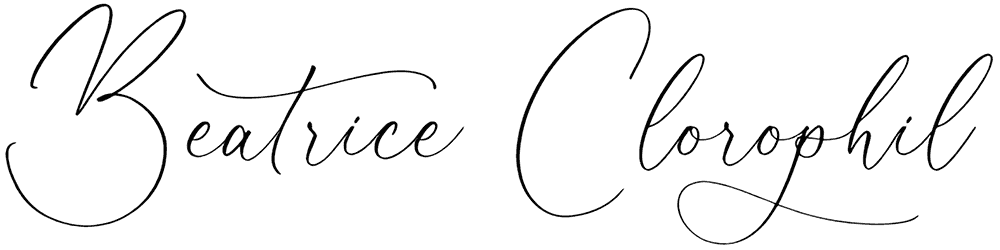
Beatrice Clorophil Font
How ravishing your classic romance book will be if you use this elegant calligraphy font. Page by page of your story is going to convey a delightful vibe to your readers. The Beatrice Clorophil font is a part of our chic signature collection that could surprise you with its varied items.